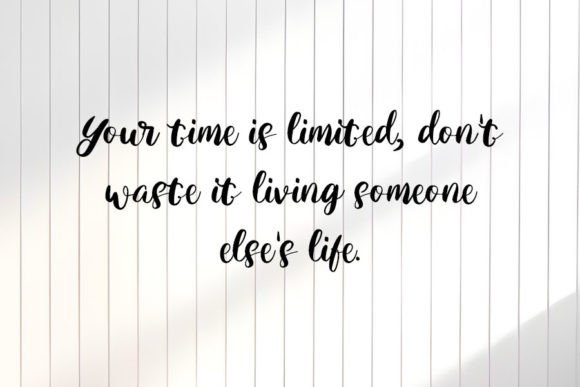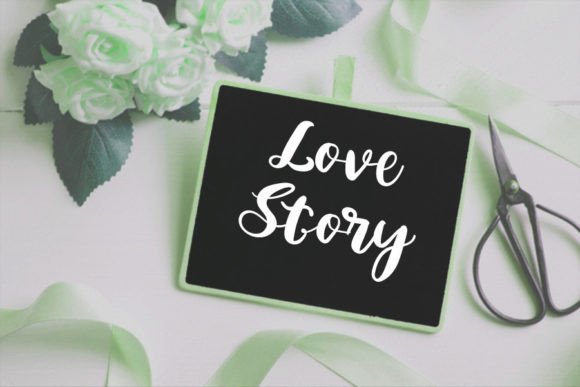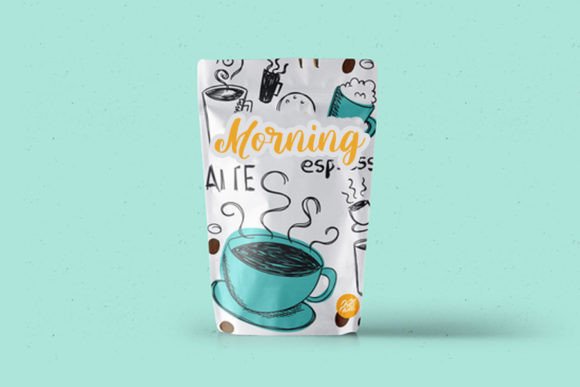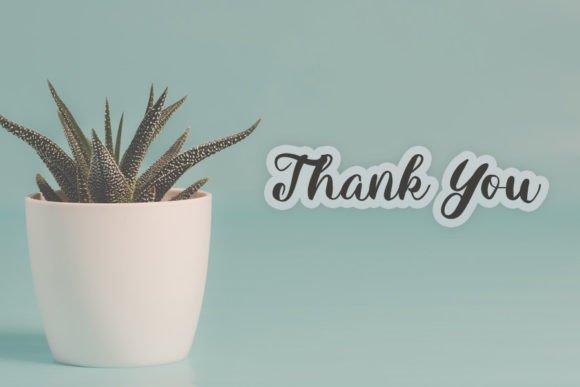
Introducing Black Panda Font: The Ultimate Relaxed and Laid-Back Handwritten Font
Are you tired of using the same old fonts in your designs? Look no further! Black Panda Font is here to revolutionize your font library with its unique relaxed and laid-back handwritten style. This versatile font is perfect for a wide range of topics and can elevate any creation with its distinctive charm.
What Makes Black Panda Font So Special?
Black Panda Font is a one-of-a-kind handwritten font that exudes a sense of calmness and serenity. Its relaxed and laid-back style makes it perfect for designs that require a personal touch. Whether you’re working on a project for a client or creating something for your own brand, Black Panda Font is sure to make your design stand out from the crowd.
Key Features of Black Panda Font
- Handwritten style: Black Panda Font has a beautiful handwritten style that gives it a personal and unique touch.
- Relaxed and laid-back: The font’s relaxed and laid-back style makes it perfect for designs that require a calm and serene feel.
- Versatile: Black Panda Font can be used for a wide range of topics and projects, from creative designs to commercial projects.
- Easily readable: The font is designed to be easily readable, making it perfect for body text and headings.
Use Cases for Black Panda Font
Black Panda Font is perfect for a variety of design projects, including:
- Branding and logos: Use Black Panda Font to create a unique and memorable brand identity.
- Posters and flyers: Add a personal touch to your posters and flyers with Black Panda Font.
- Social media graphics: Use Black Panda Font to create engaging and eye-catching social media graphics.
- Packaging design: Add a touch of personality to your packaging design with Black Panda Font.
- Web design: Use Black Panda Font to create a unique and visually appealing website.
Why Designers and Crafters Love Black Panda Font
Designers and crafters love Black Panda Font for its unique style and versatility. Here are a few reasons why:
- Unique style: Black Panda Font has a one-of-a-kind style that sets it apart from other fonts.
- High-quality: Black Panda Font is a high-quality font that is designed to produce crisp and clear text.
Black Panda Font is a unique and versatile handwritten font that is perfect for designers and crafters. Its relaxed and laid-back style makes it ideal for a wide range of design projects, from branding and logos to social media graphics and web design. With its ease of use and high-quality design, Black Panda Font is sure to become a valuable addition to your font library.